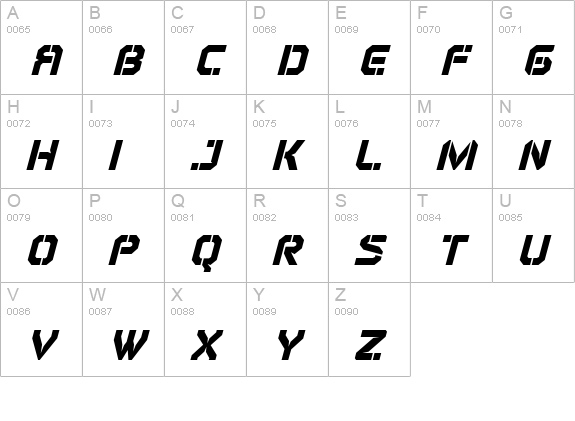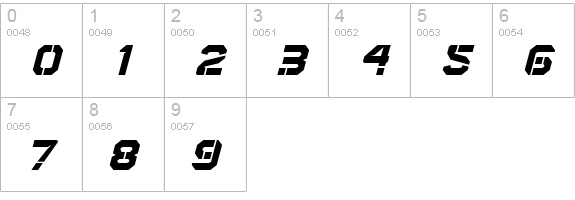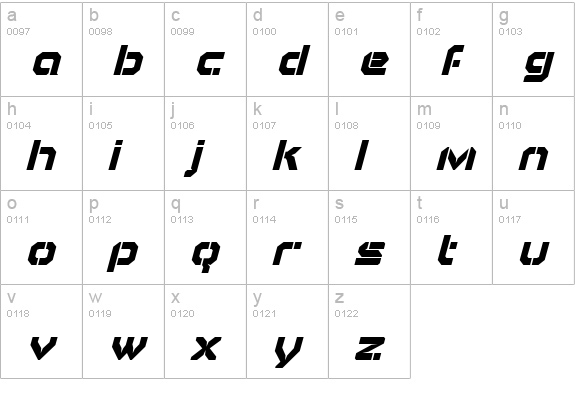
Airbrake Oblique is a distinctive, italic variant in the Airbrake typeface family \xE2\x80\x94 well suited to design and typography projects.
Airbrake Oblique font is a modern and sleek typeface designed to add a touch of sophistication to your designs. Its unique slanted style gives a dynamic and edgy look, making it perfect for projects that require a contemporary and stylish feel. The sleek lines and sharp angles of Airbrake Oblique font make it stand out from the crowd and grab attention. Whether you're designing a poster, logo, or website, this font will make your text pop and leave a lasting impression. Best of all, Airbrake Oblique font is available for free download at FontsMarket.com. Simply head over to the website and add this versatile typeface to your collection without breaking the bank. With its modern design and free availability, Airbrake Oblique font is a must-have for any designer looking to elevate their projects with a touch of elegance and flair.